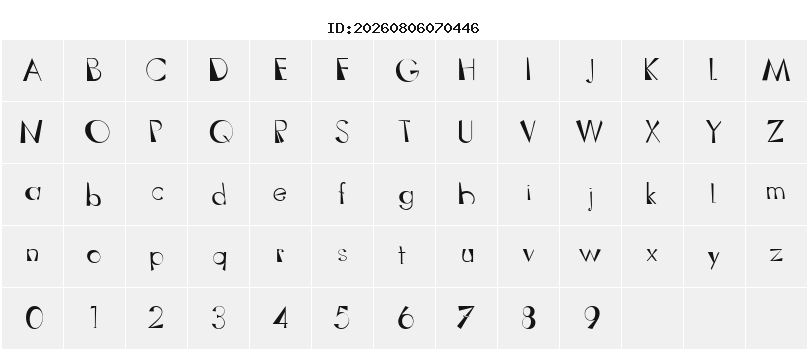
Outhaus Preview
• Font Name: Outhaus
• Font Style: A
• Full Font Name: Outhaus A
• PostScript Name: OuthausA
About Outhaus.ttf
Outhaus.ttf is a modern, elegant sans-serif font designed for ultimate readability and visual harmony. Perfect for branding, headlines, web design, and print materials.